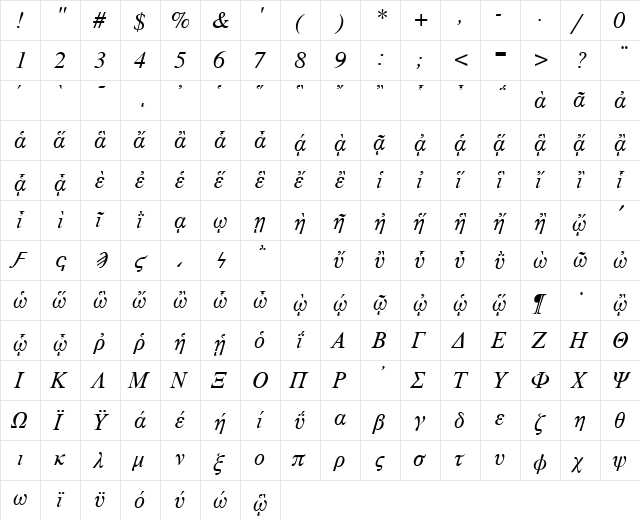
GreekTimesAncientSSK Italic Font Preview
GreekTimesAncientSSK Italic
GreekTimesAncientSSK Italic Font Details
Design Context for GreekTimesAncientSSK Typeface
GreekTimesAncientSSK offers clean, dependable letterforms without strong stylistic allegiance, making it a practical choice for designers who need flexibility. Its italic angle brings a sense of urgency and motion to the letterforms.
Pro Tip: Try GreekTimesAncientSSK for annotation and caption copy alongside an upright companion — the contrast in angle creates a dynamic but ordered typographic system.